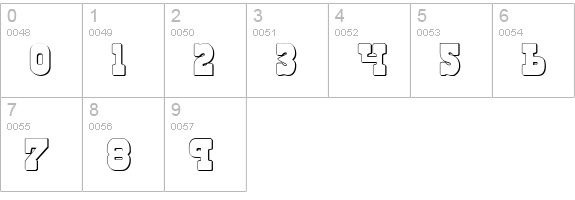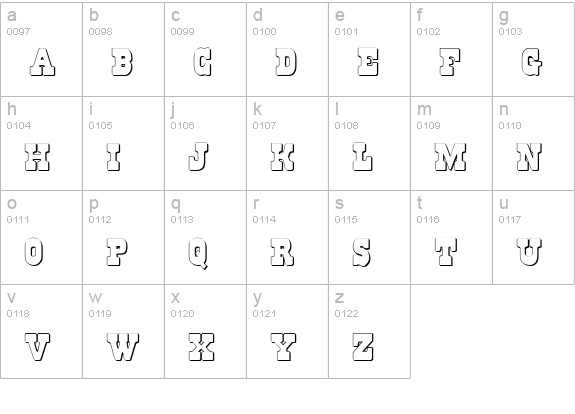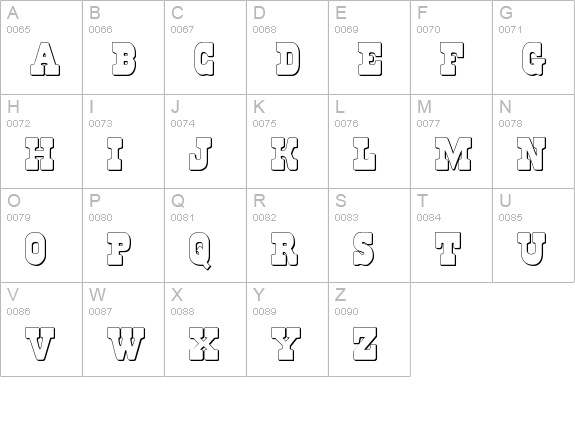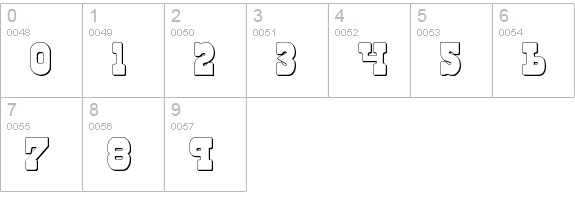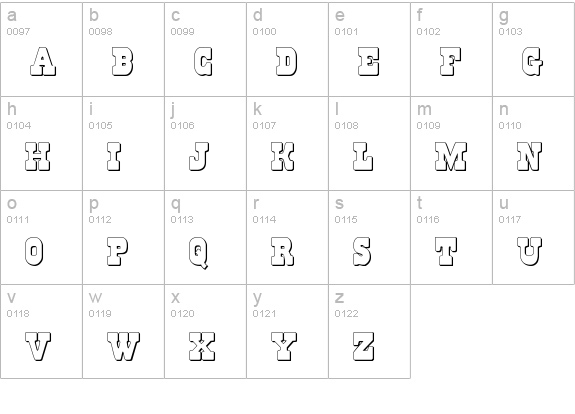
Regulators Shadow Font Details
Regulators Shadow font is a stunning display typeface that exudes power, elegance, and sophistication. Its bold and sharp letterforms are carefully crafted to create a striking visual impact. This font is perfect for creating attention-grabbing headlines, logos, posters, and various designs that require a touch of grandeur. With its unique shadow effect, Regulators Shadow font adds a three-dimensional depth to your designs, making them stand out from the crowd. The shadows seamlessly blend with the letters, creating a seamless and captivating visual experience. What's more, Regulators Shadow font is freely available to download at FontsMarket.com. This means that you can effortlessly enhance your projects without any additional cost. Whether you're a professional designer looking for a versatile font or an enthusiastic hobbyist exploring new creative possibilities, Regulators Shadow font is an excellent choice. This font is designed with utmost precision and attention to detail, ensuring that every letter, curve, and line is perfectly balanced. Its legibility remains intact even at smaller sizes, making it suitable for a wide range of applications. From branding materials to invitations, Regulators Shadow font adds a touch of elegance and sophistication to any project. So why wait? Download Regulators Shadow font now from FontsMarket.com and elevate your designs to new heights. Unleash your creativity and let this font be the perfect companion in your design journey. With its captivating aesthetics and the freedom to use it without any restrictions, Regulators Shadow font is a must-have for anyone seeking to make a bold statement.